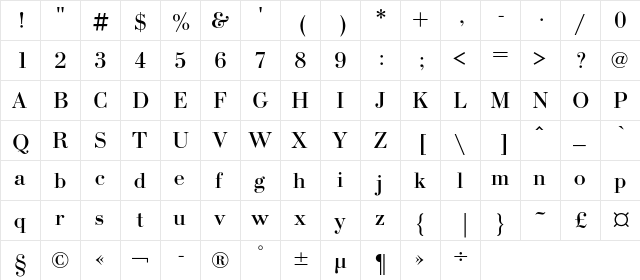
BodoniC Regular
Design Context for BodoniC Typeface
BodoniC takes a measured approach to typography — its balanced proportions and neutral character make it a reliable workhorse for both digital and print work.